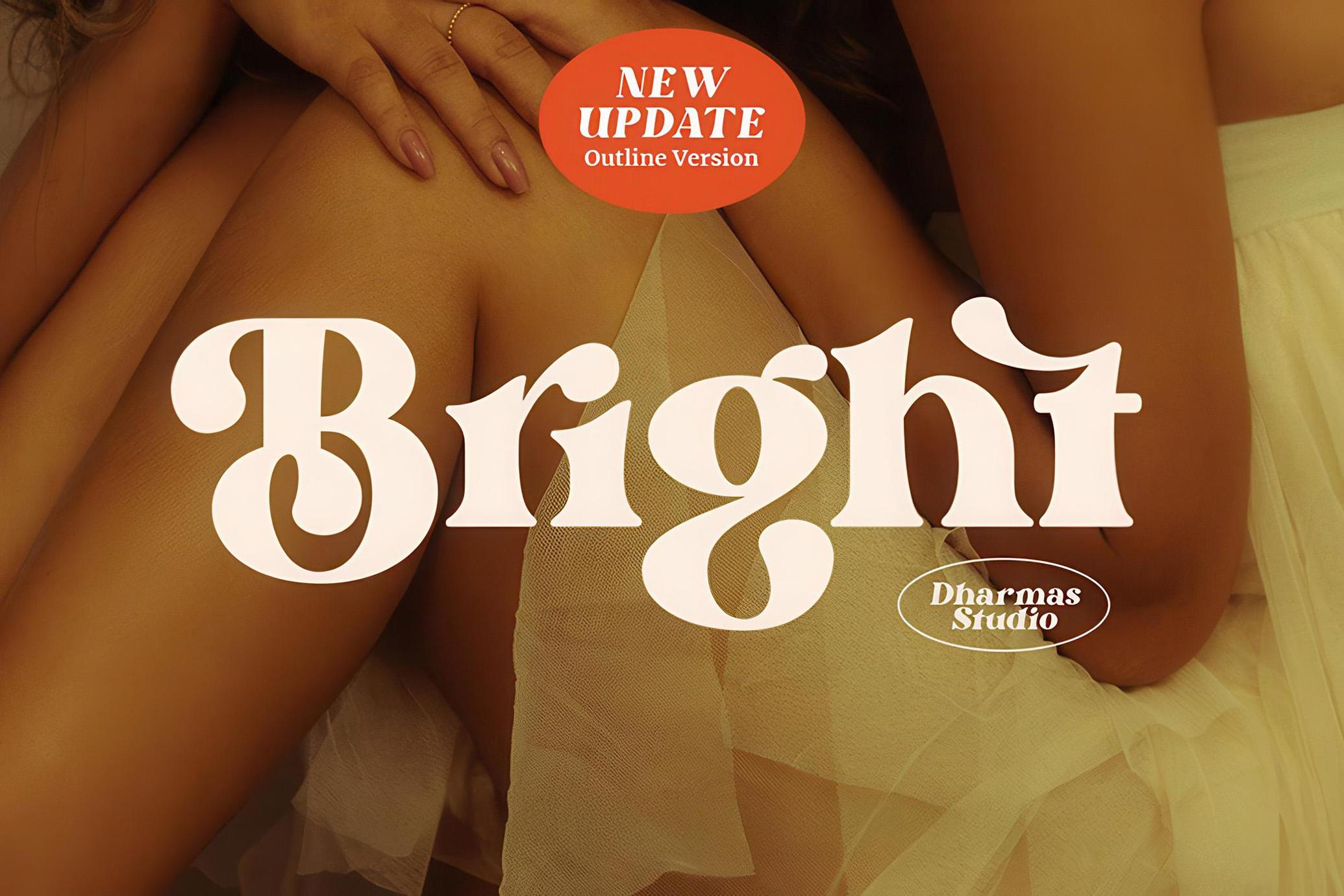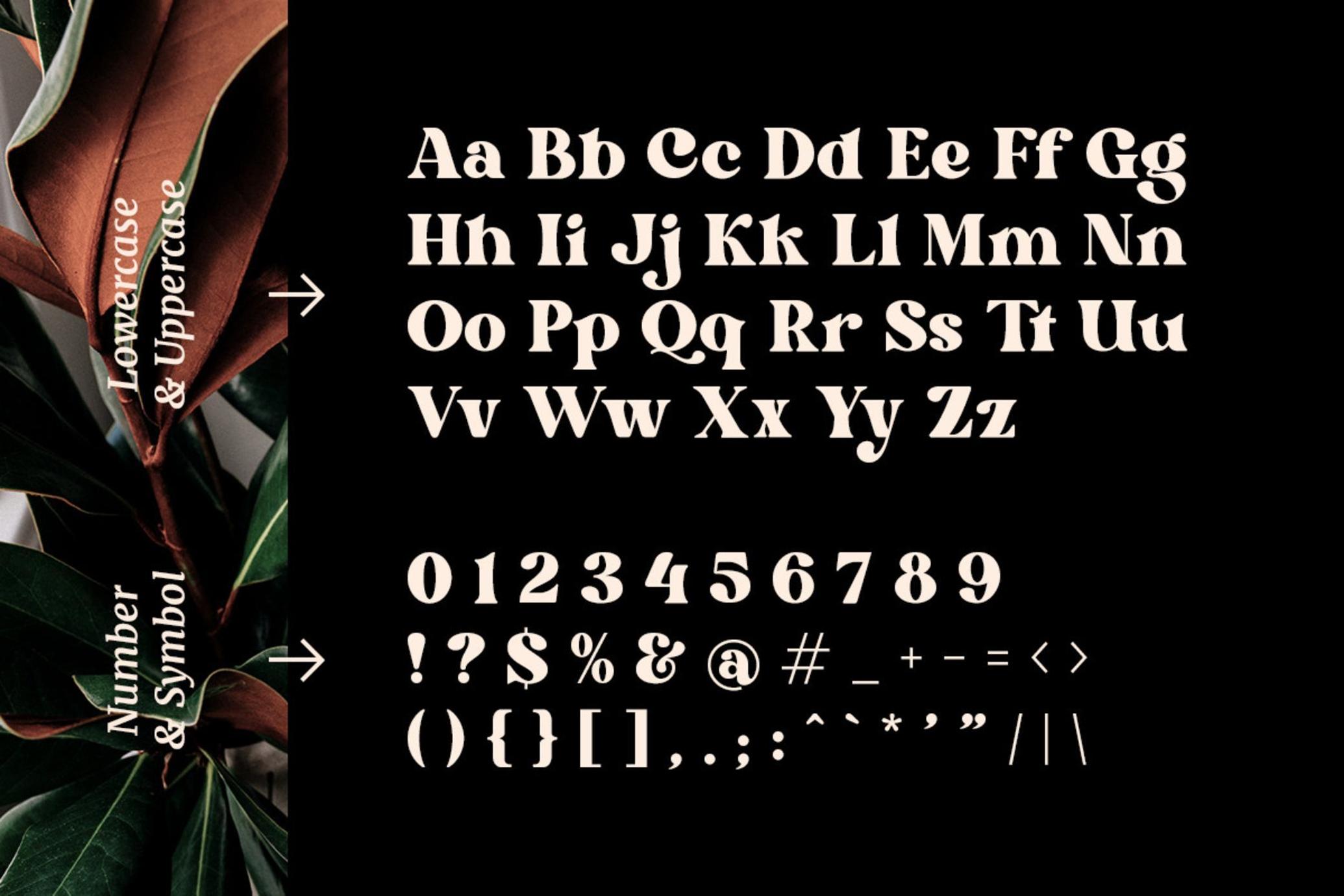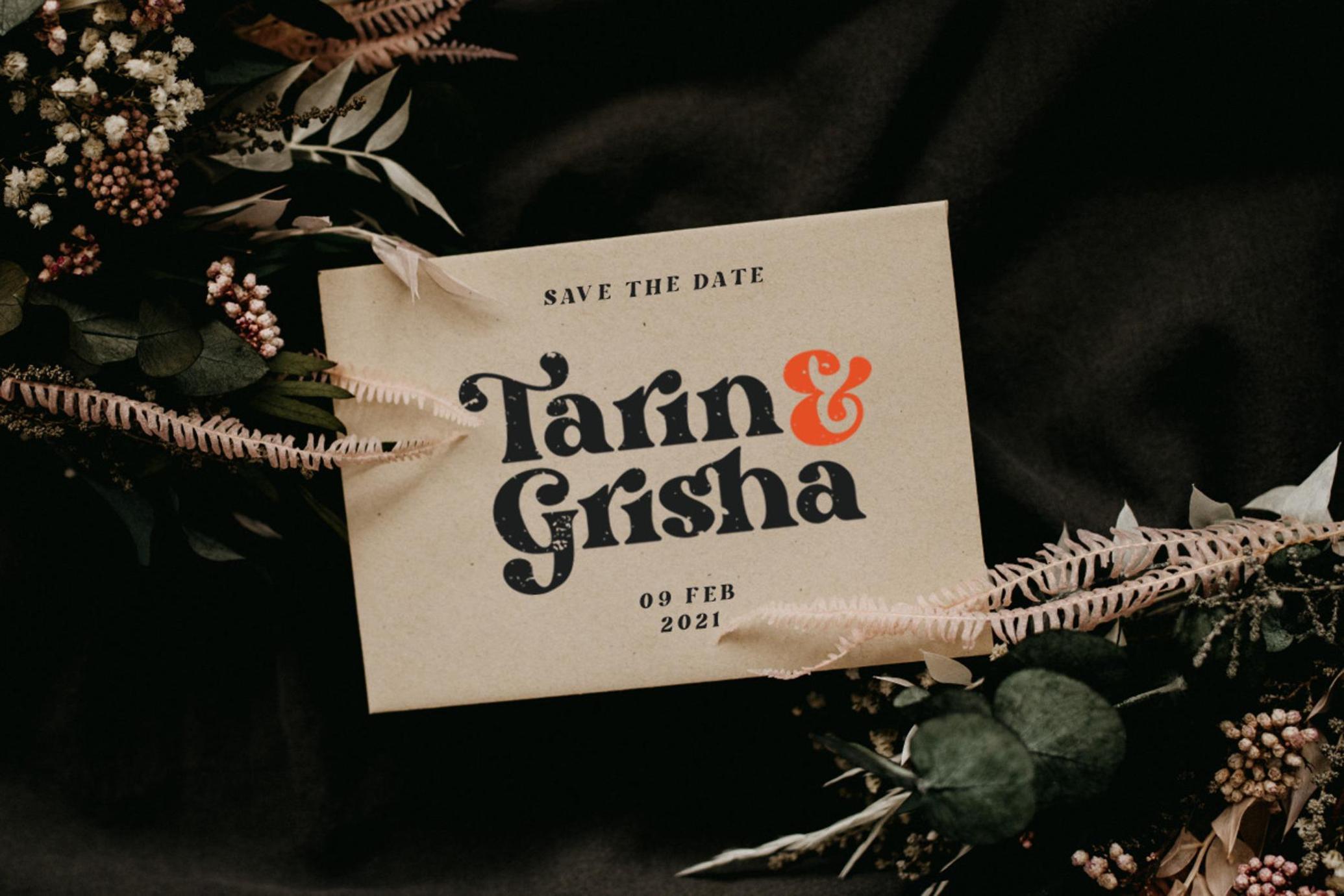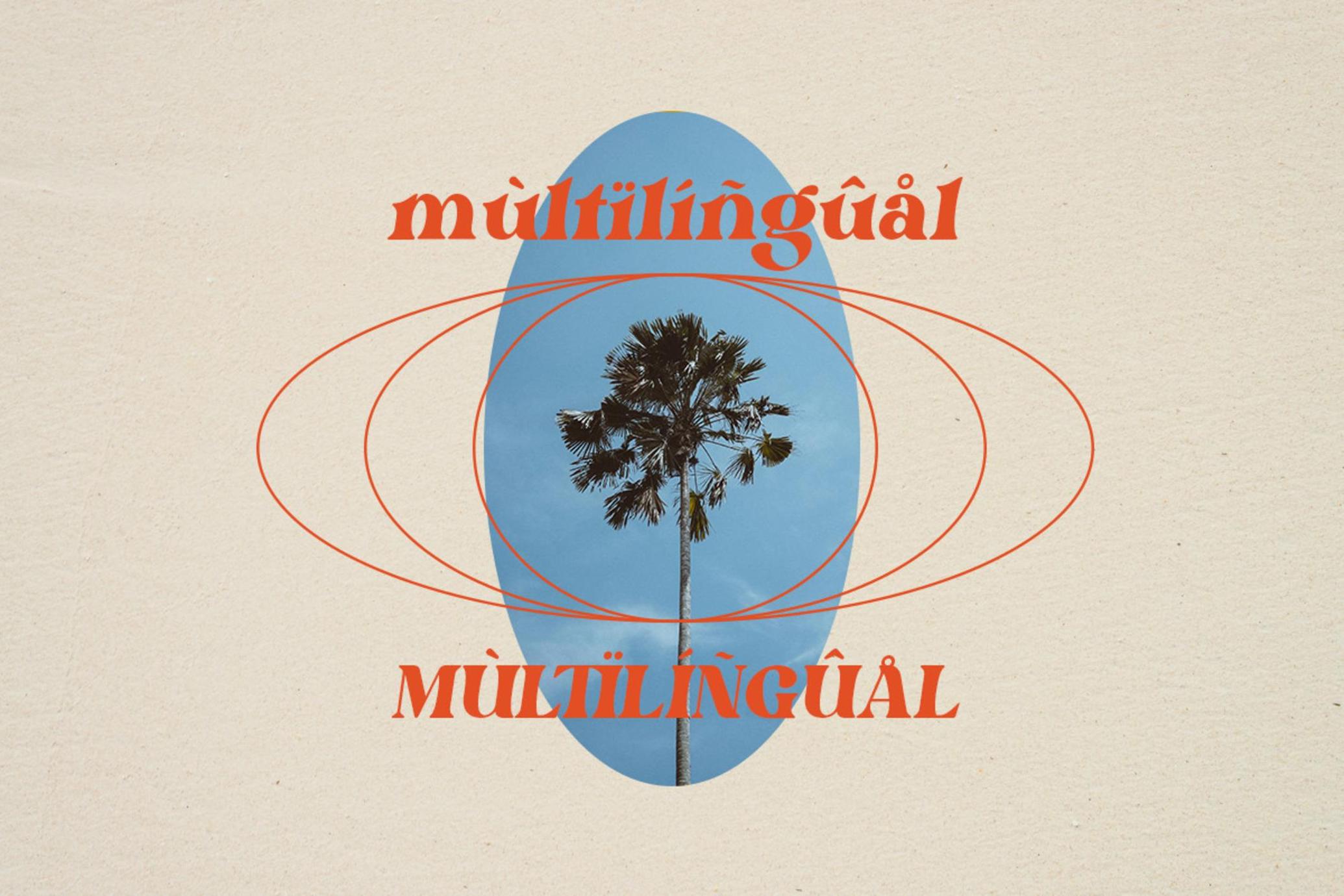
Bright - Retro Font
Bright is a stylish font It has both a modern and retro look - clear, modern, and fun. Helps to create layout design in the 60s or 70s design projects.
This font has more than 50 unique alternatives and ligatures that give your logo, business card, and another project a unique vintage look. It has an Italic version too so what a perfect vintage font!
• Bright Outline
• Unique letterforms